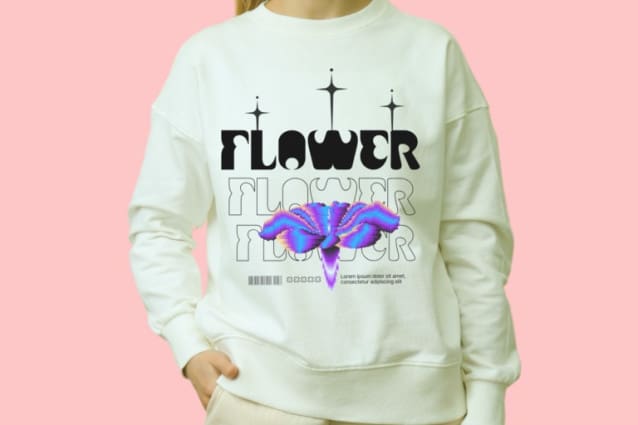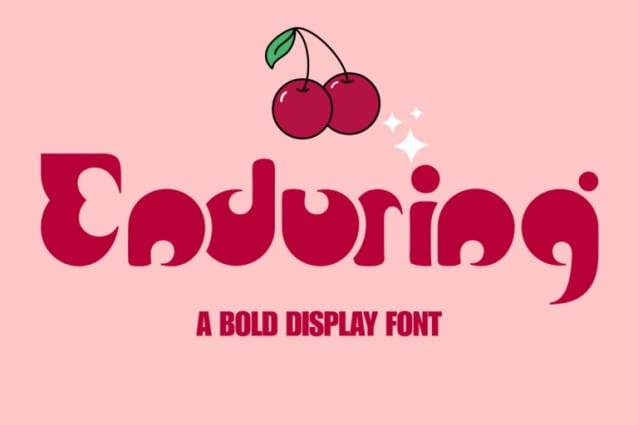
Enduring Display Font
Enduring Display Font is a bold display font that is crafted with smooth design, offering a perfect blend of retro and modern aesthetics. It’s a childish and fun display font that conveys impeccable friendliness. Whether you’re using it for crafts, digital designs, presentations, cover books, or making greeting cards, this font is the right choice.
Enduring was built with OpenType features and includes 100 ligatures, alternate, numbers, punctuation, and it also supports other languages.